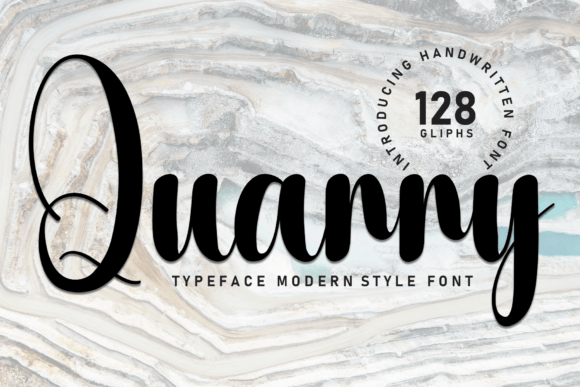
Immerse yourself in the captivating world of QUarry, a handwritten font that exudes charm and elegance. Inspired by the delicate strokes of a calligrapher's pen, QUarry dances across your screen with its playful and carefree nature, adding a touch of warmth and personality to your creative projects.
With its smooth curves and effortless flow, QUarry is the perfect choice for those seeking a font that embodies both beauty and readability. Whether you're designing wedding invitations, crafting heartfelt cards, or adding a personal touch to your social media posts, QUarry's versatility knows no bounds.
Picture this: your wedding invitations adorned with QUarry's graceful letters, carrying a message of love and joy to your guests. The font's romantic charm transforms your invitations into cherished keepsakes, capturing the essence of your special day.
Or perhaps you're a passionate crafter, pouring your heart into handmade cards for your loved ones. QUarry's friendly and approachable style adds a heartfelt touch to your creations, making each card a unique expression of your affection.
Step into the realm of digital artistry and let QUarry elevate your social media presence. Its whimsical nature lends itself perfectly to captivating posts, stories, and reels, drawing your audience in with its undeniable charm.
With QUarry, the possibilities are endless. Its user-friendly design makes it a joy to work with, ensuring a seamless and enjoyable creative experience. So, embark on a journey of artistic exploration with QUarry, where every stroke of your imagination becomes a masterpiece.